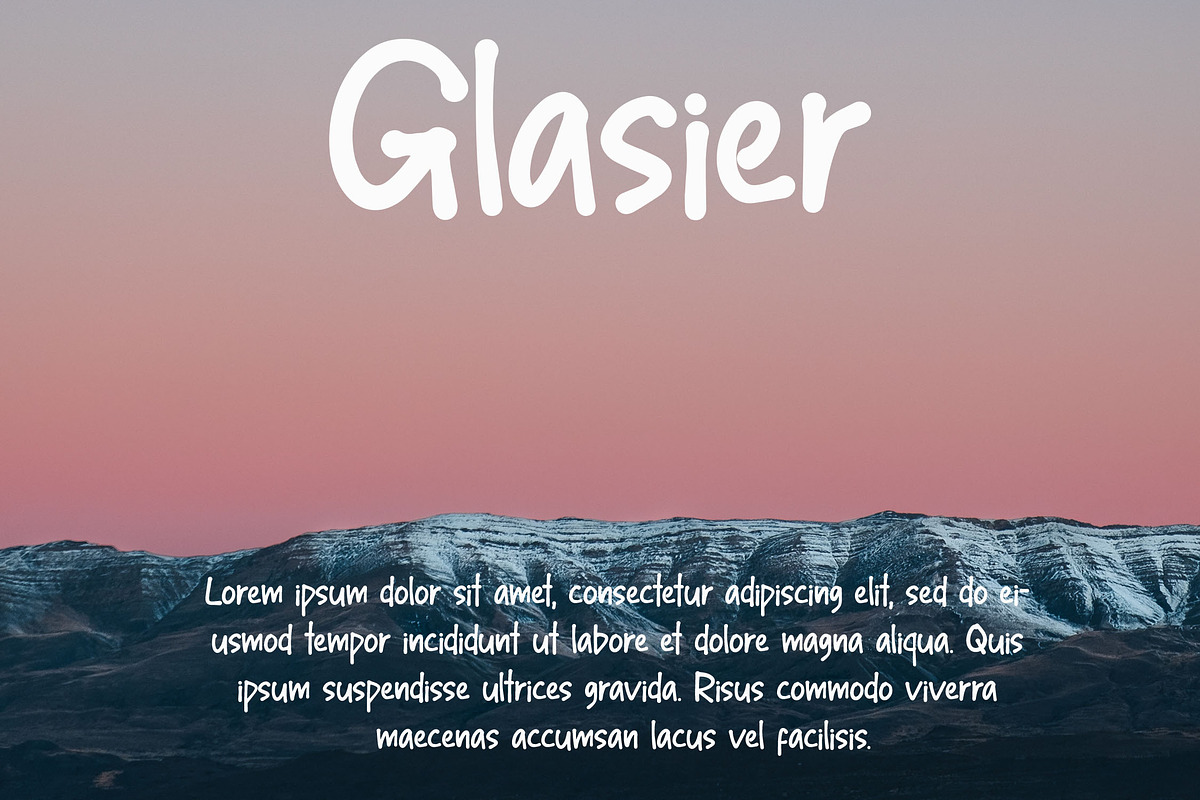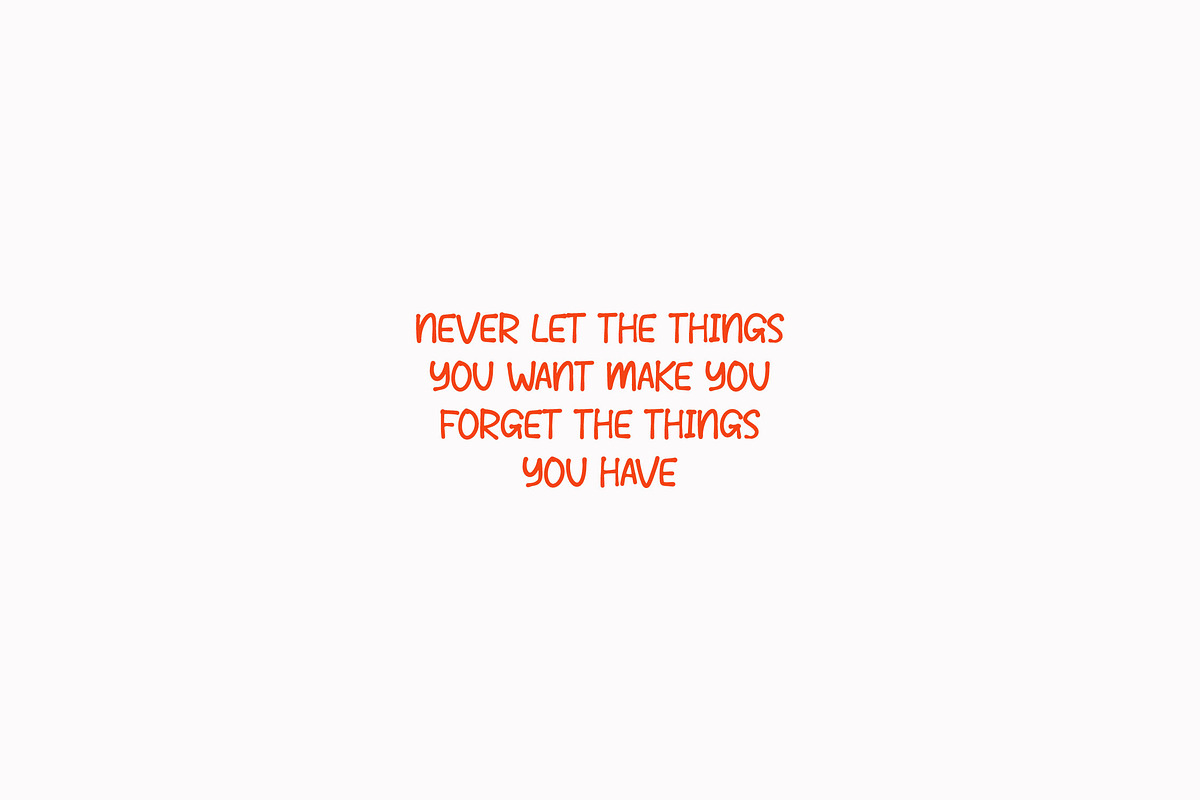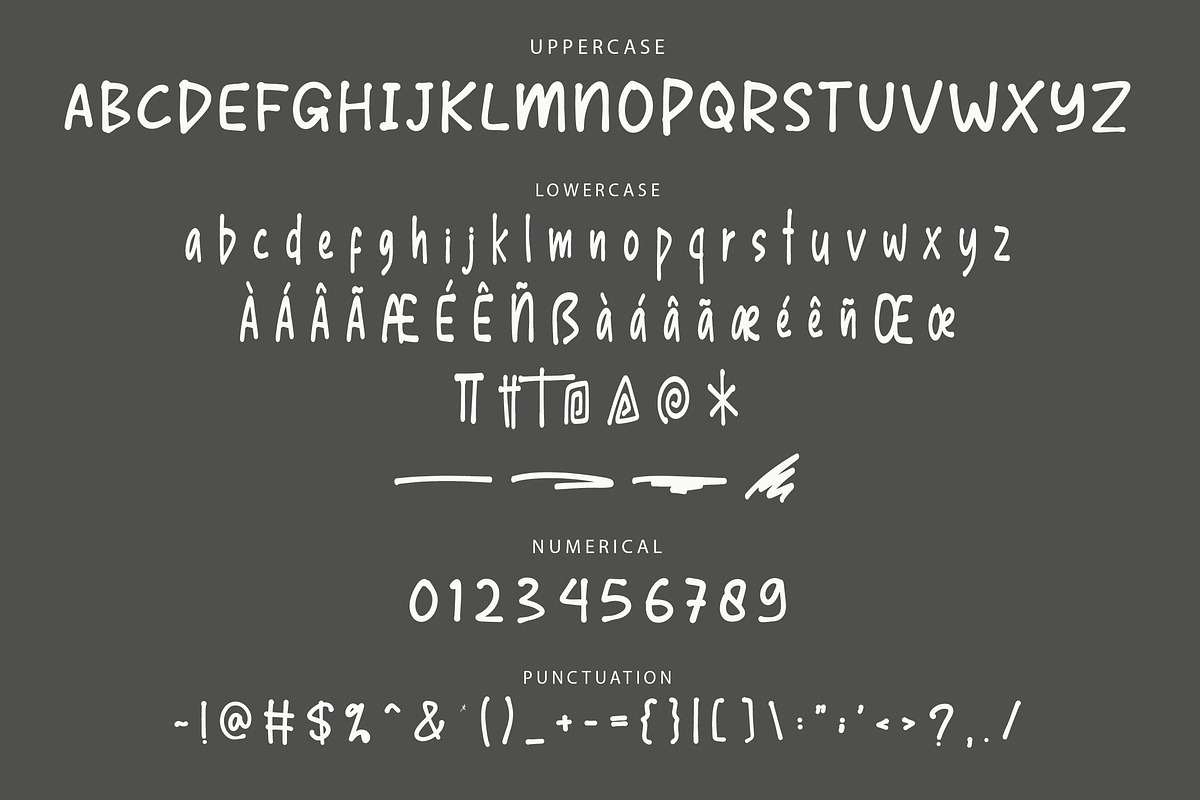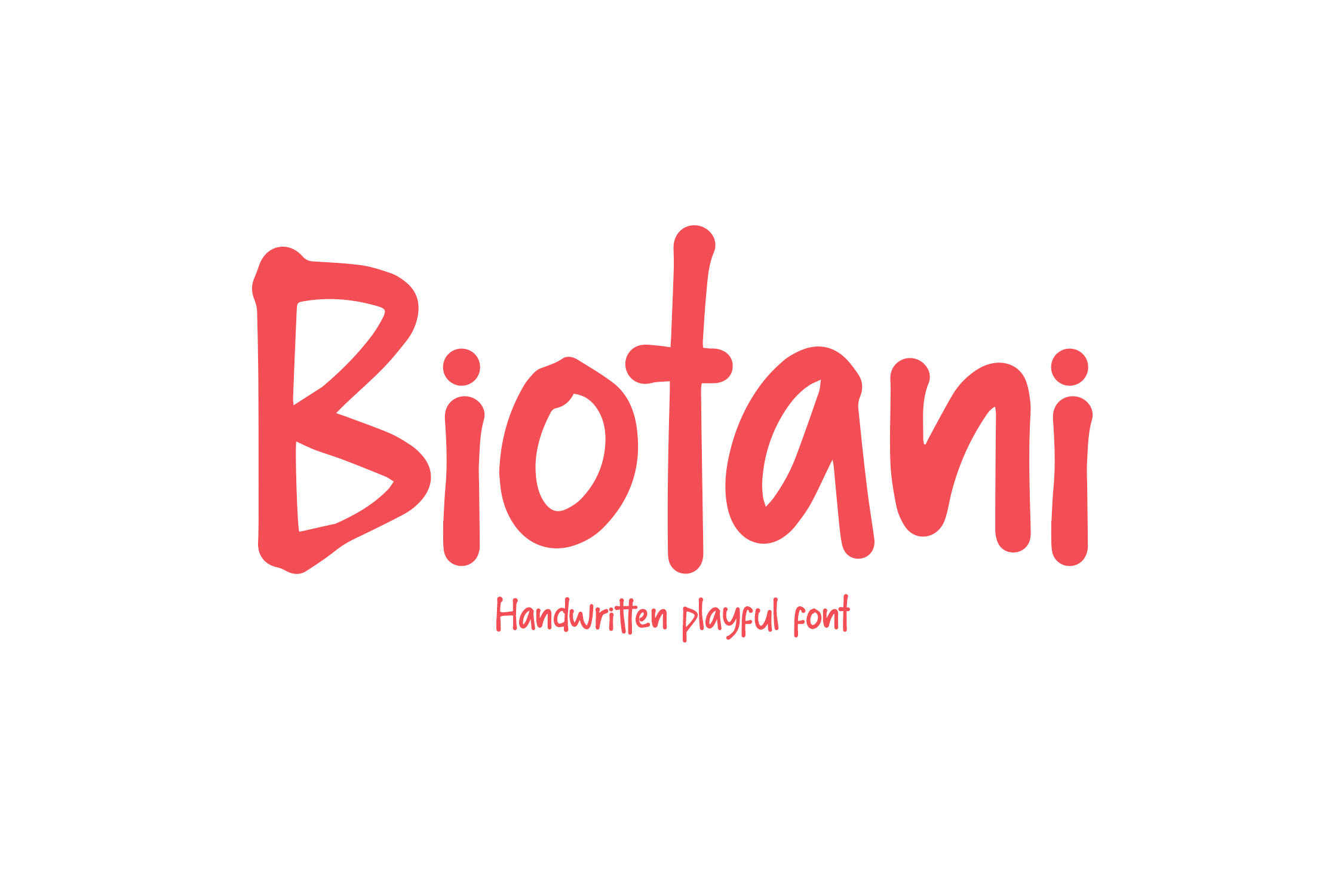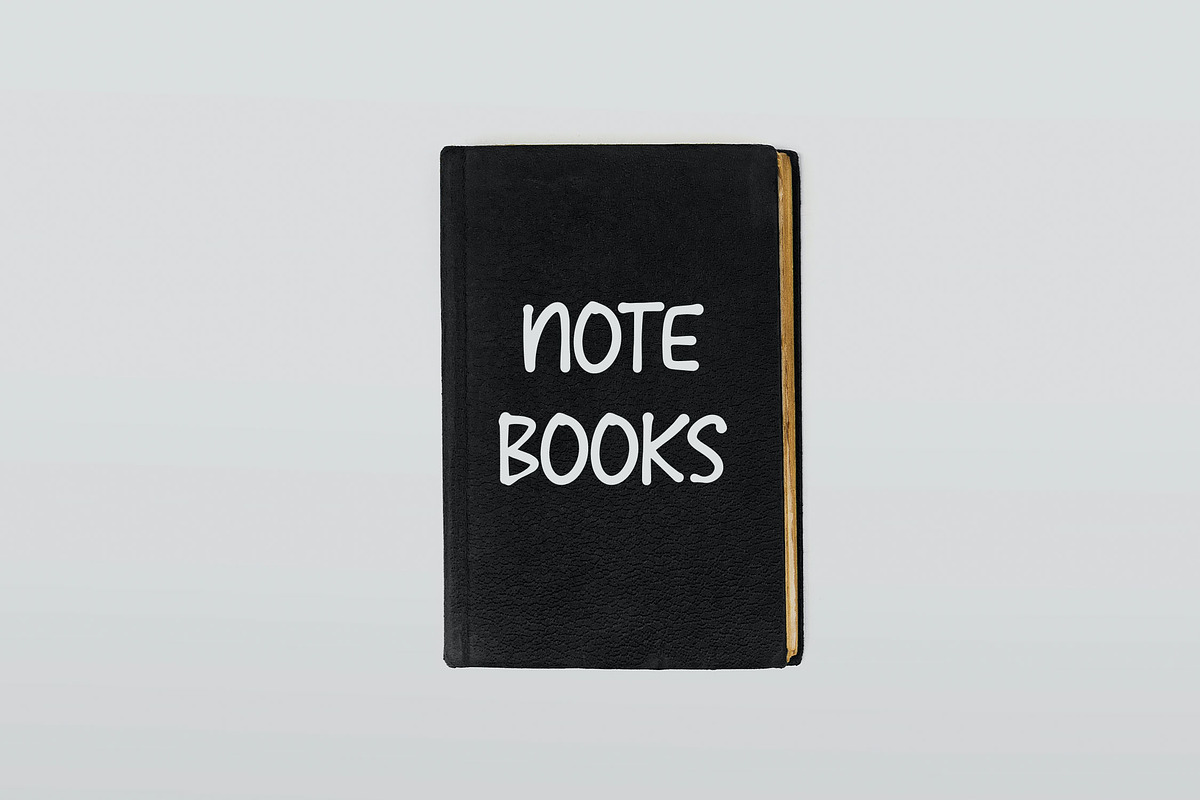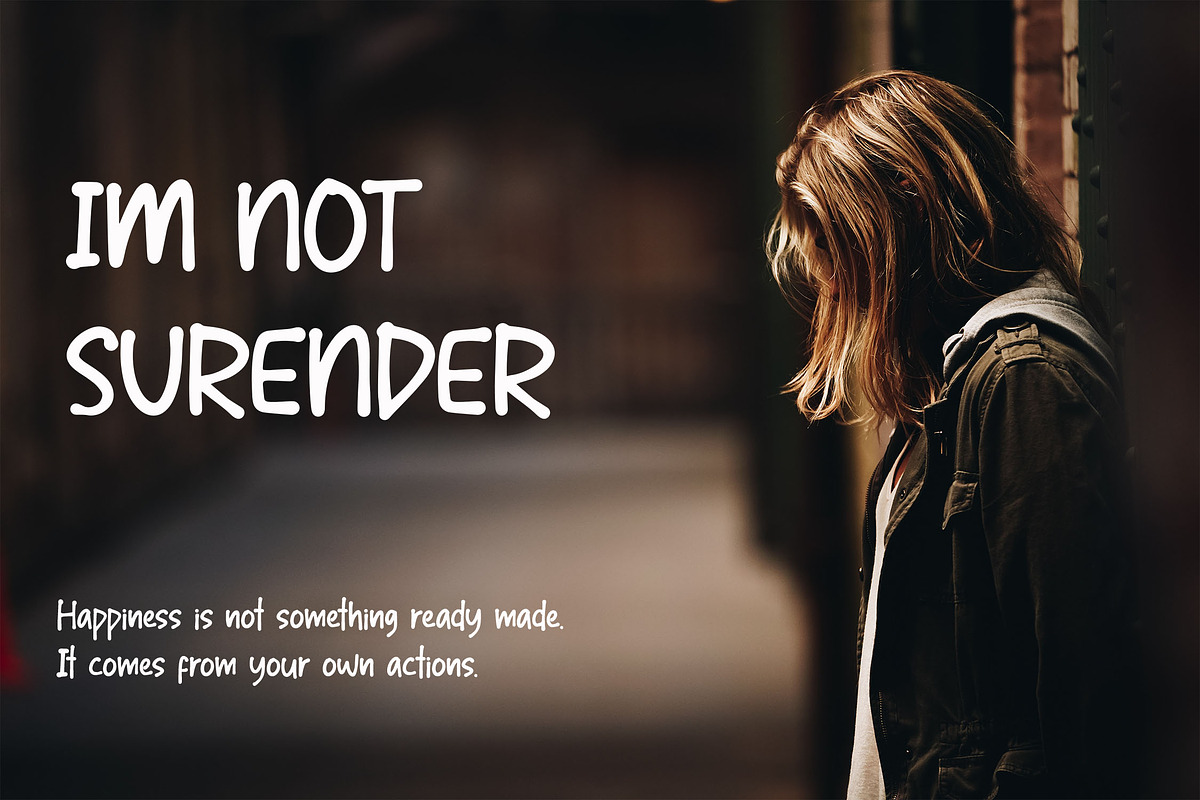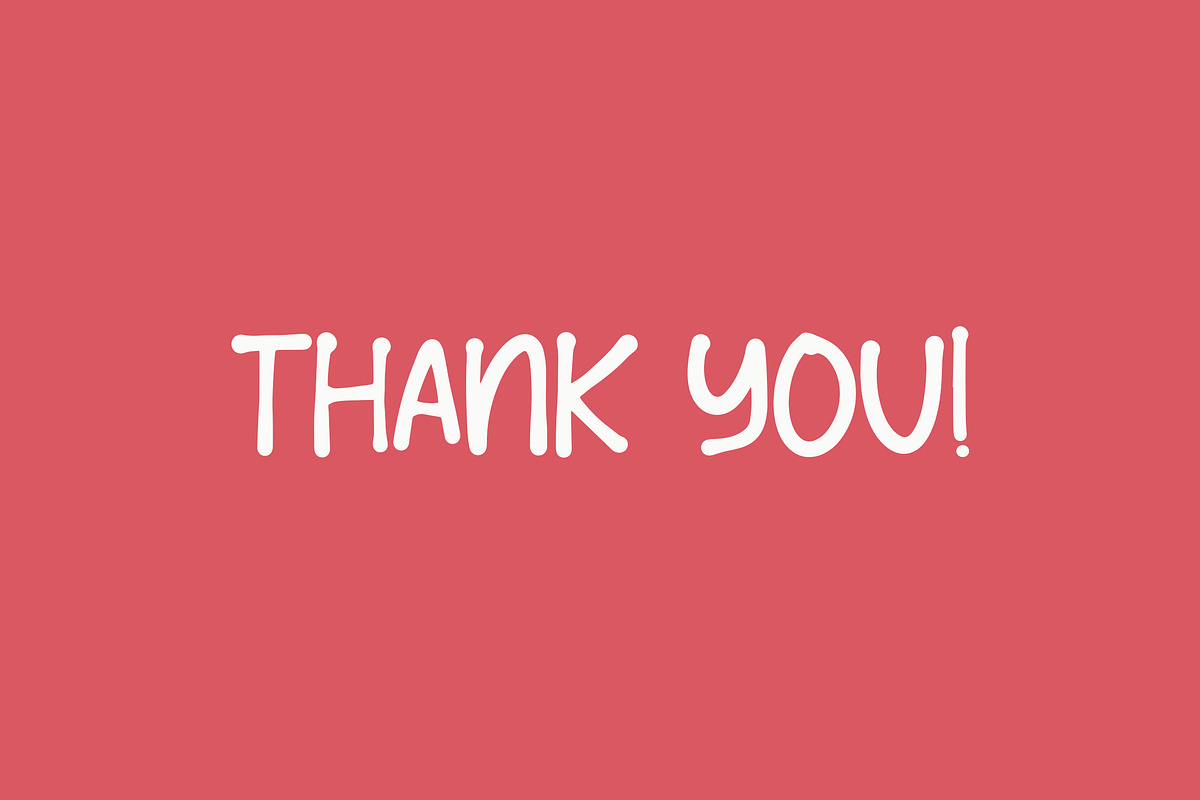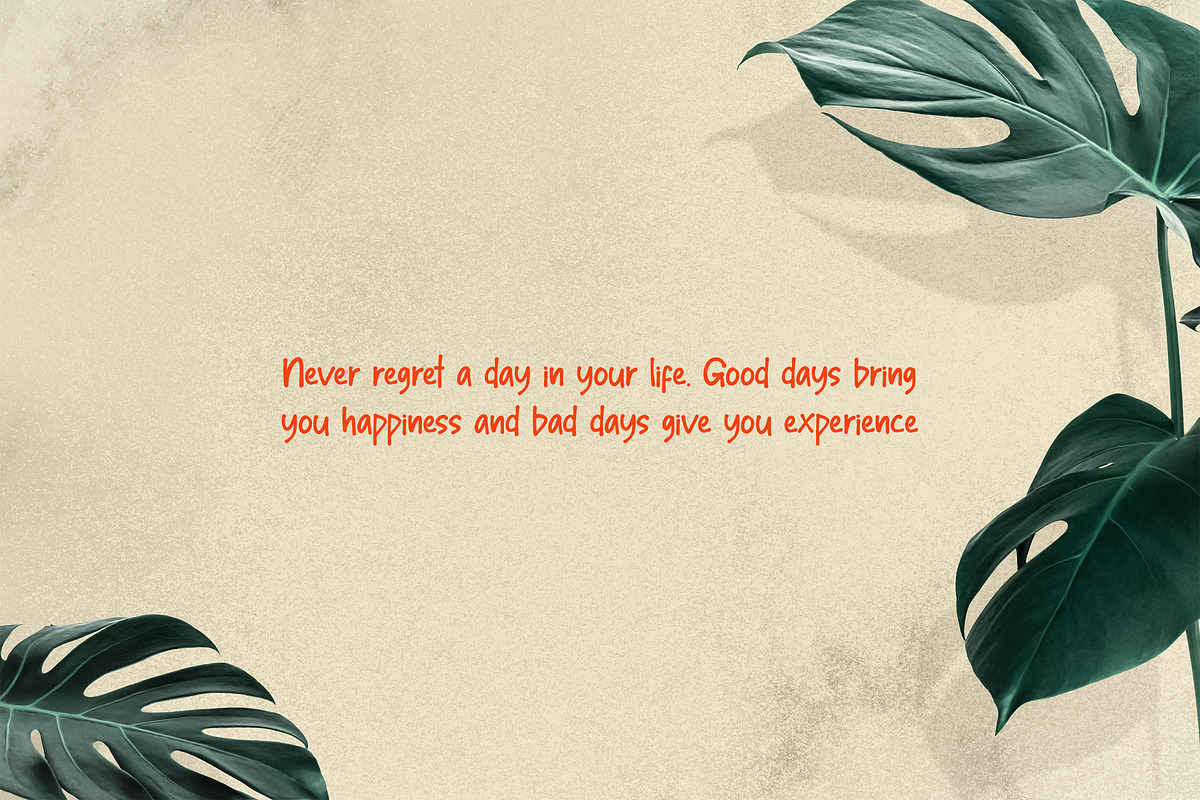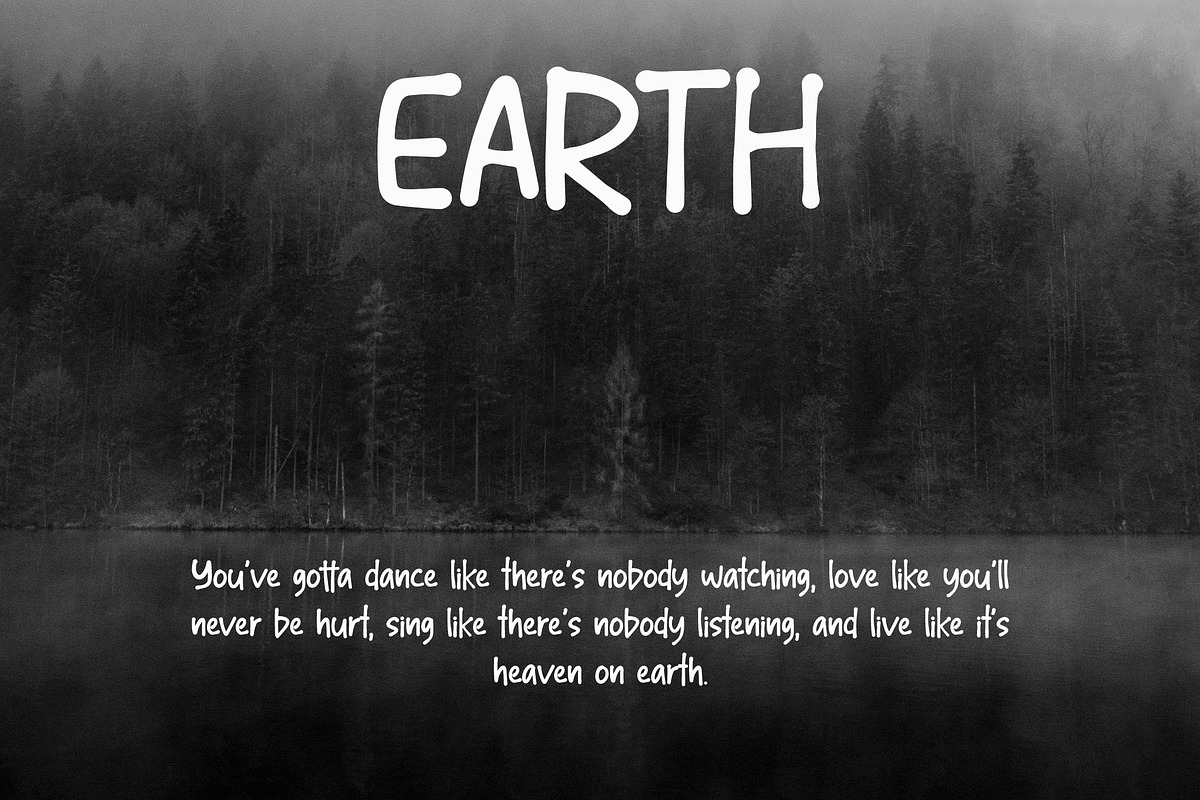
Biotani Handwriting Playful Font
Biotani is a playful handwriting font designed with unique character shapes that add a fun and creative touch to any design project. Perfect for enhancing the visual appeal of logos, product packaging, invitations, and more, Biotani brings an energetic and lively vibe to your graphics.
- Ligatures: Smooth, natural letter connections.
- Stylistic Alternates: Customize your designs with alternative characters.
- Swashes: Add playful flourishes to your text.
- Multilingual Support: Perfect for a wide range of languages.